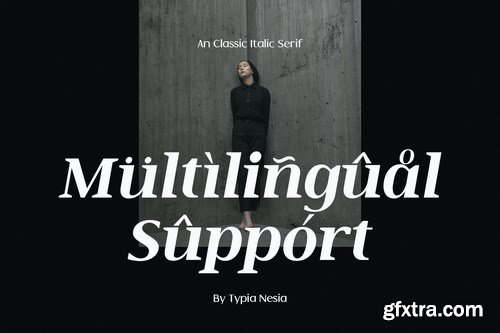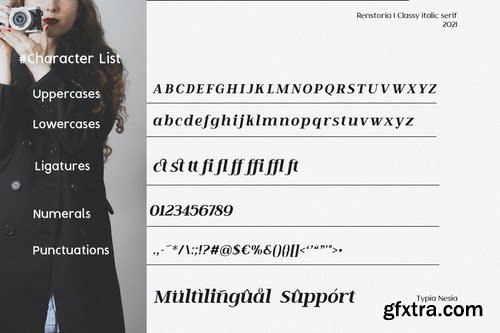
Renstoria - Classy Retro Black Italic Display Serif Font.
Renstoria Italic Serif font is perfect for your up coming projects. Such as luxury logo and branding, classy editorial design, woman magazine, cosmetic brand, retro design, fashion promotional, art gallery branding, museum, historical of architectural, boutique branding, stationery design, blog design, modern advertising design, card invitation, lettering calligraphy art quote, home decor, book/cover title, special events and any more.